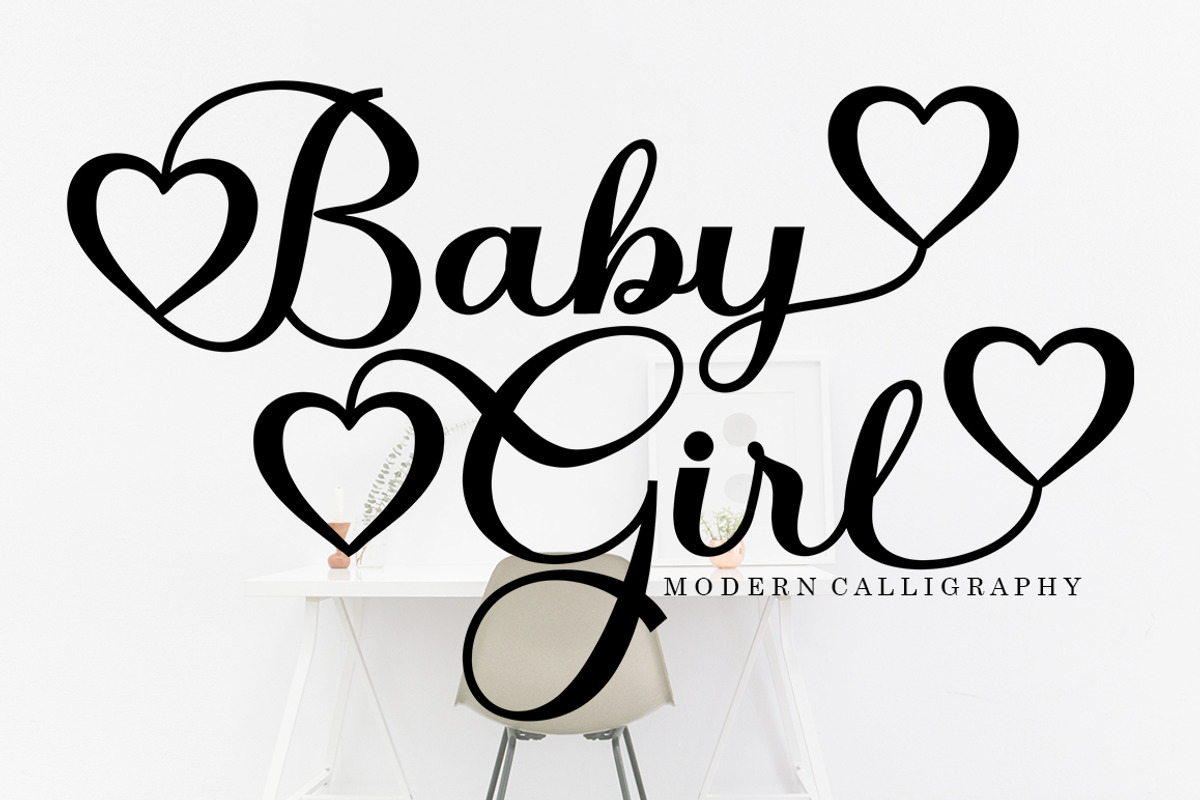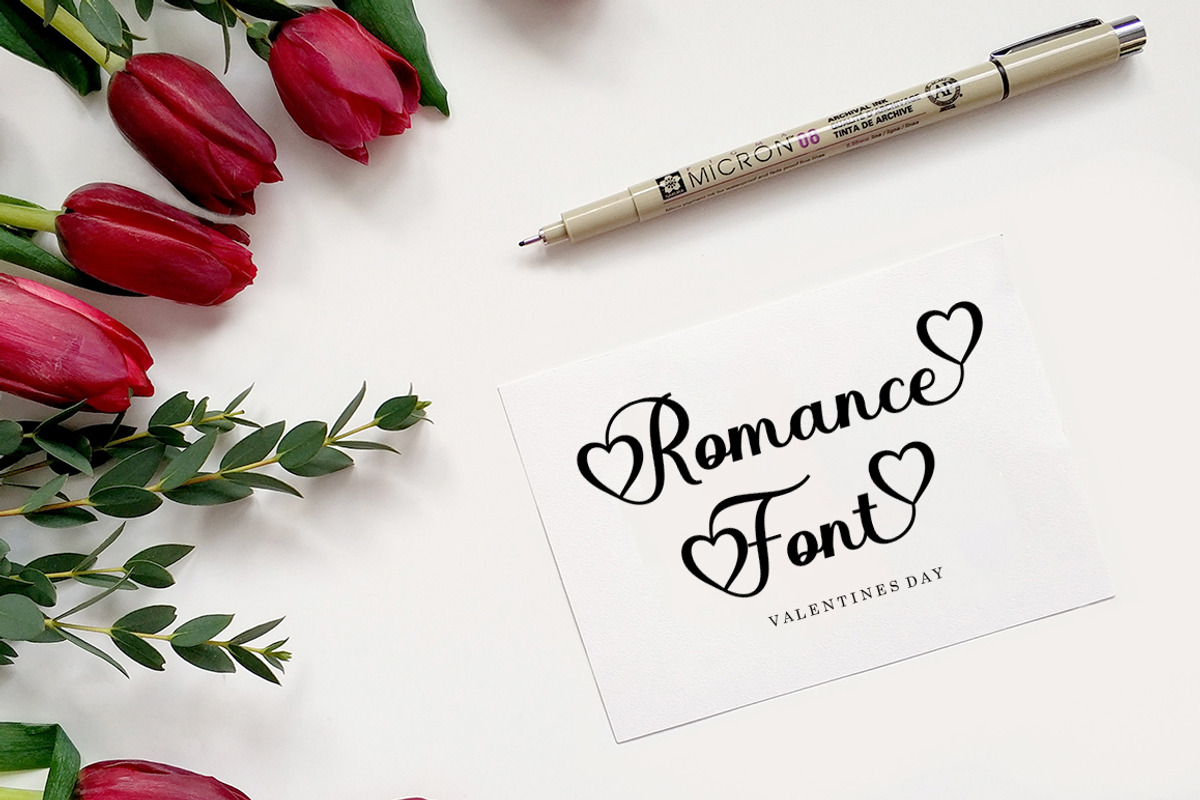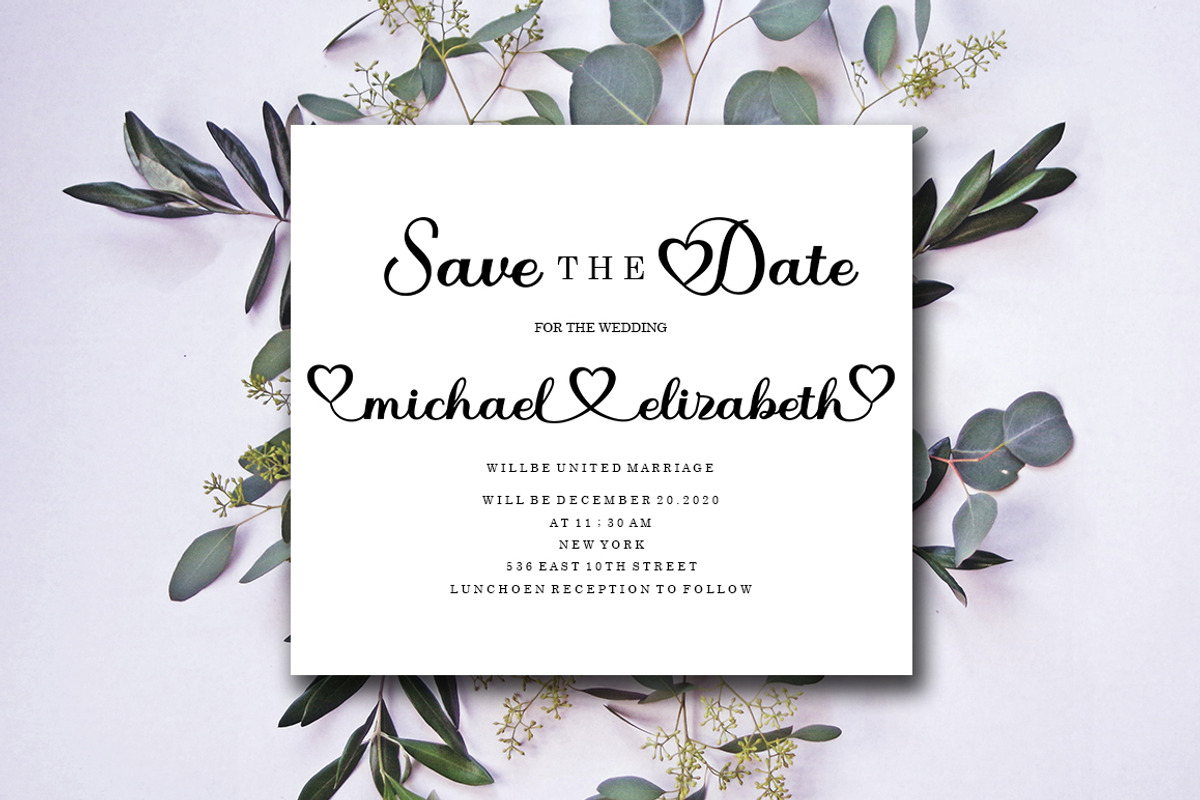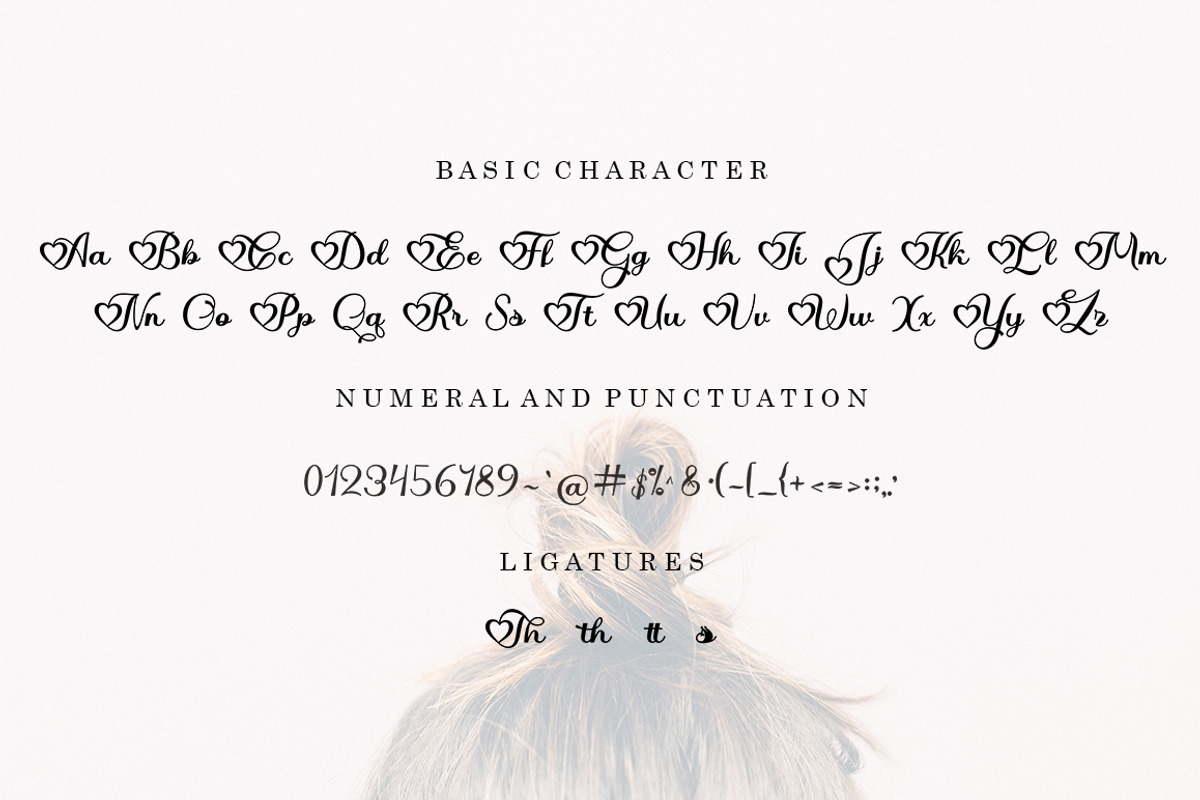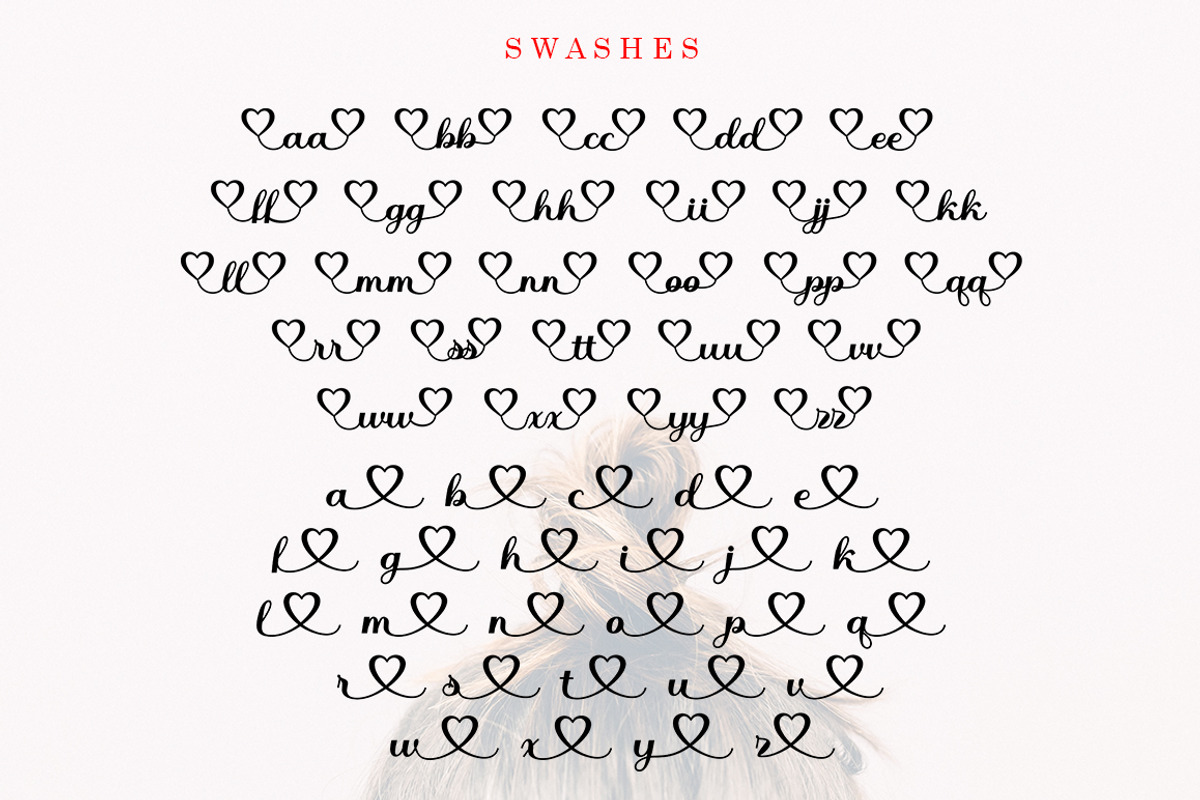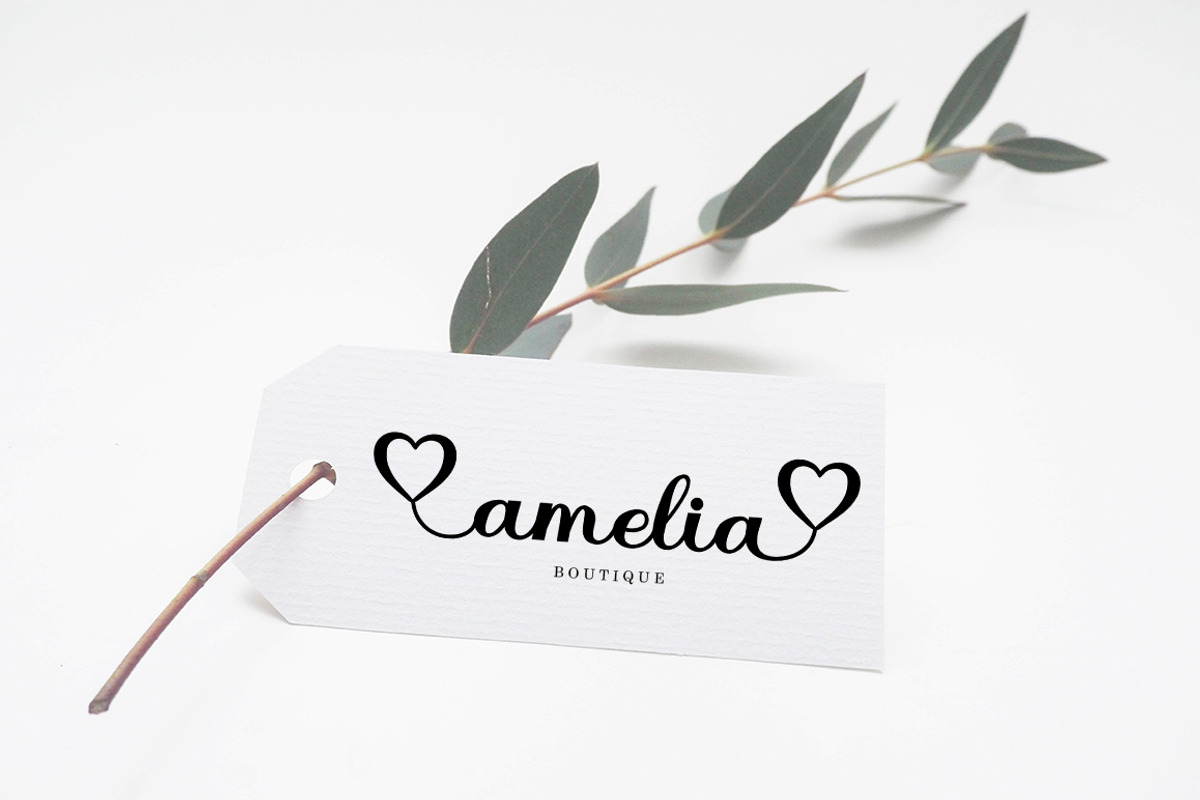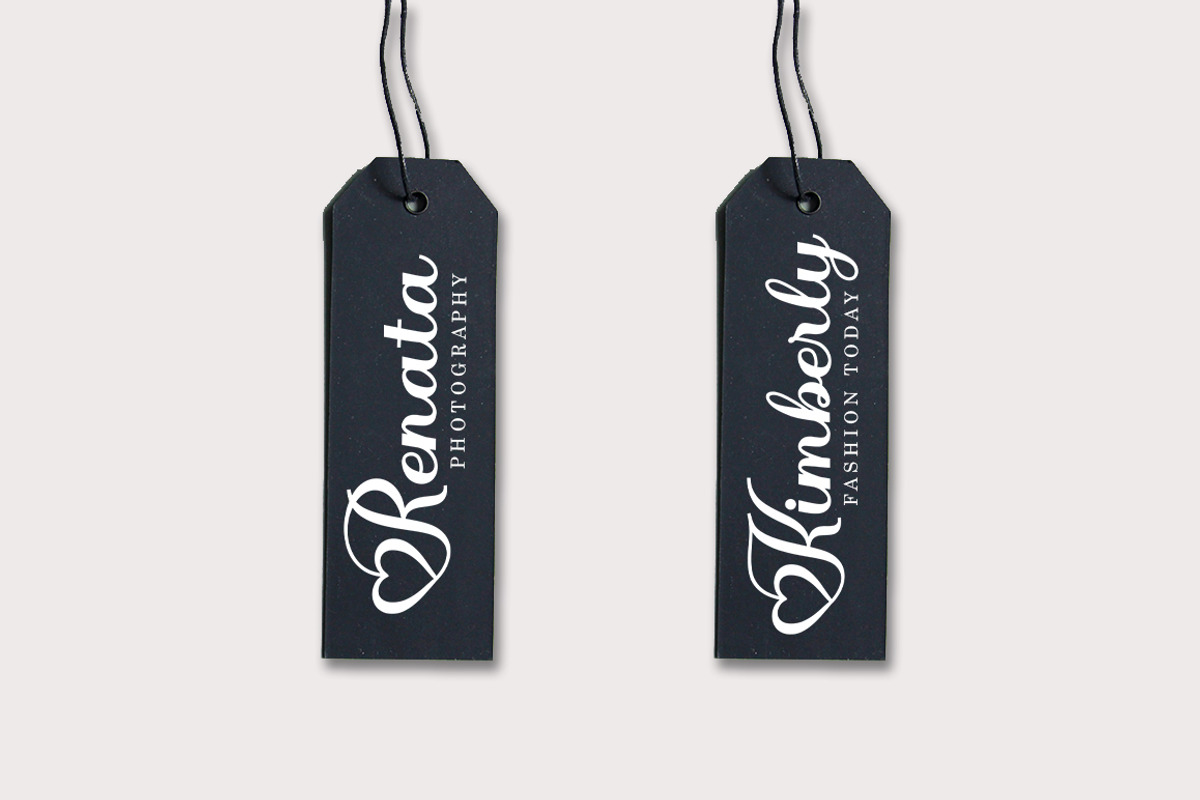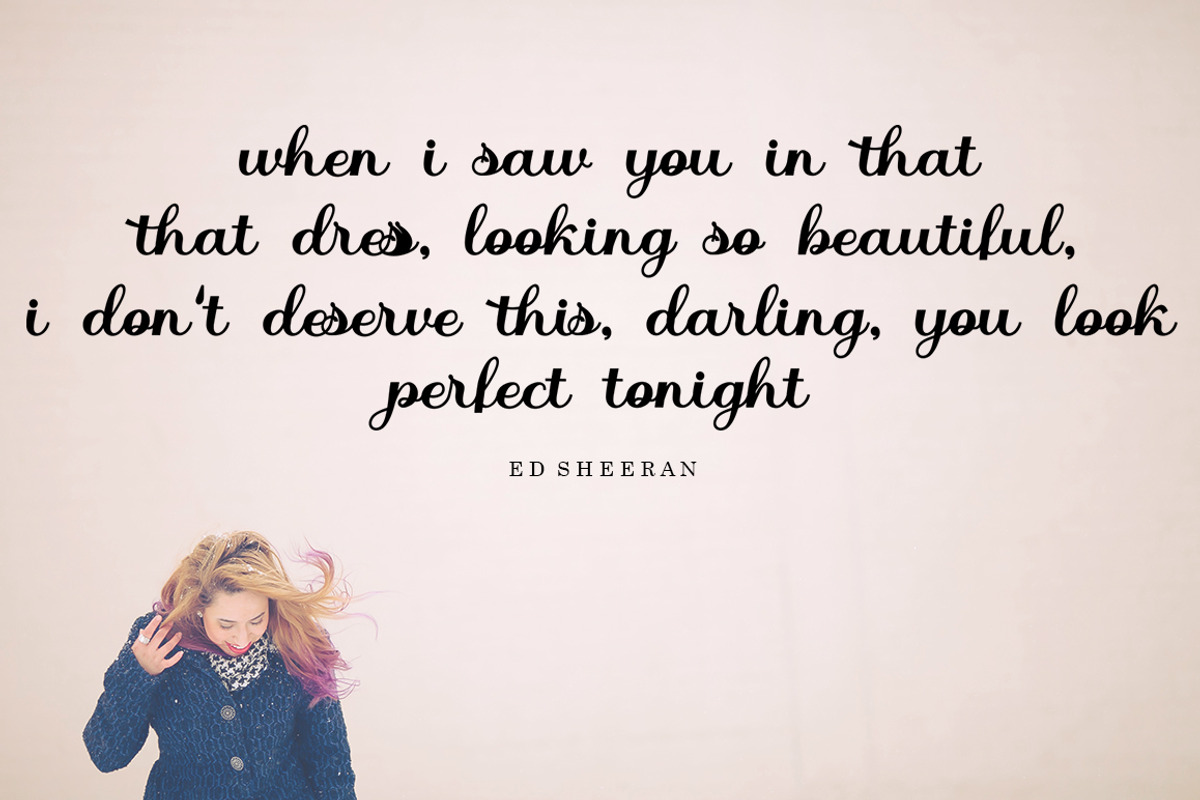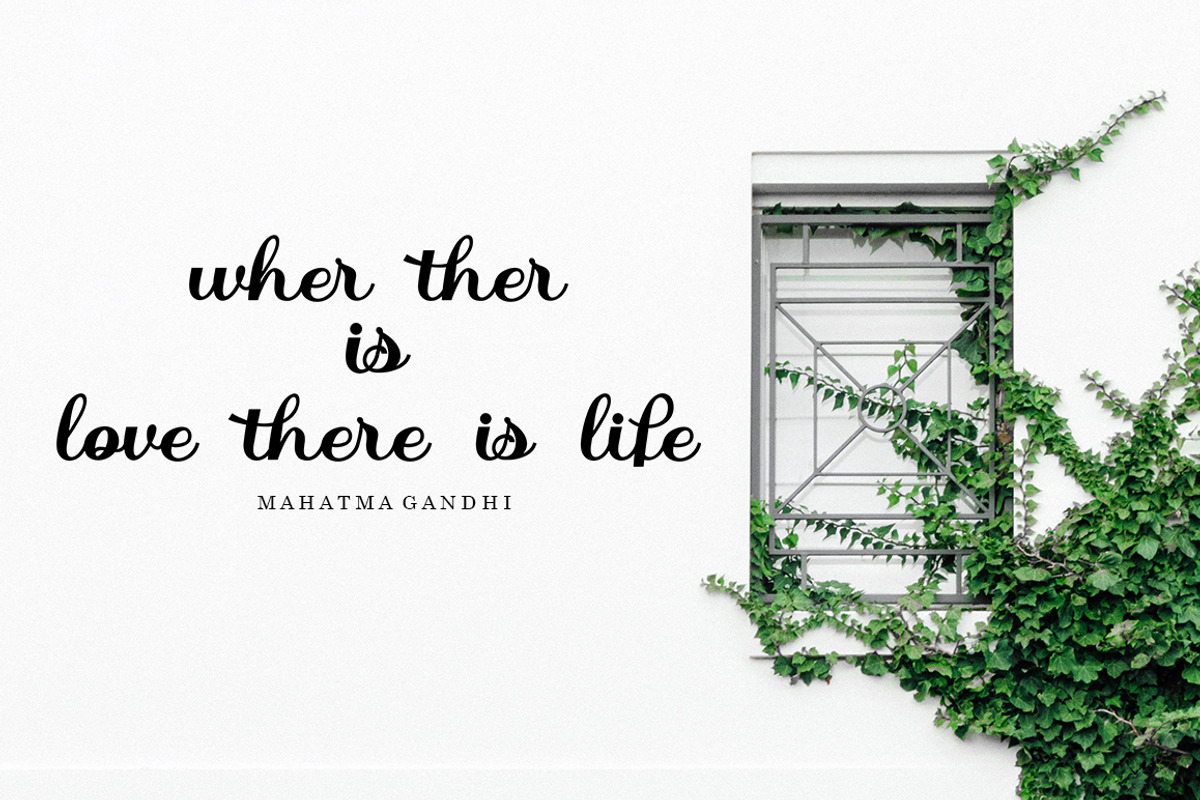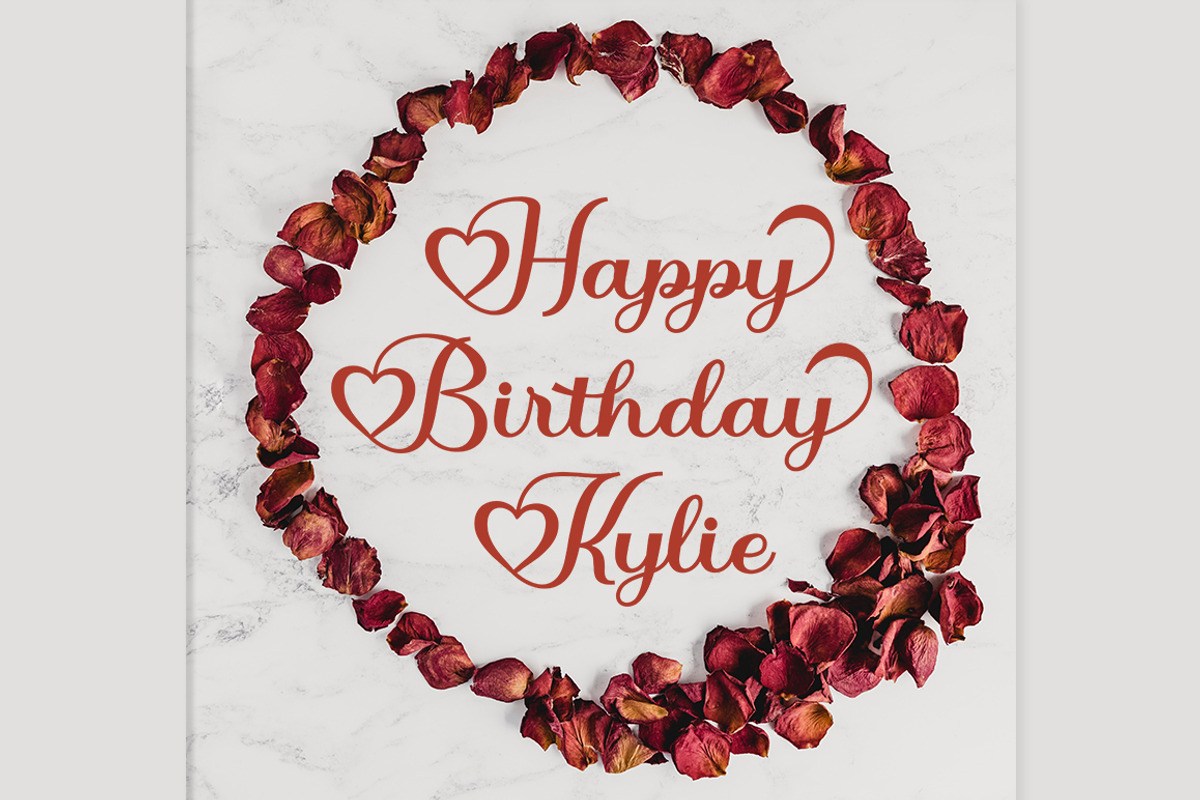
Baby Girl Script
Introducing
Baby Girl in a beautiful handwritten style. Equipped with 300 glyphs Baby Girl is perfect for branding projects, home appliance design, product packaging, use in business cards, invitation cards, etc. Simply as a stylish text overlay onto a background image or anything that requires a touch of elegance.